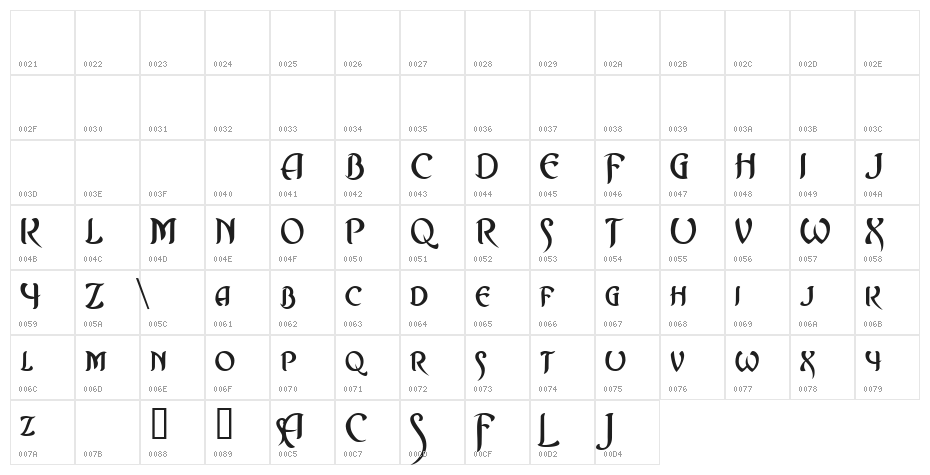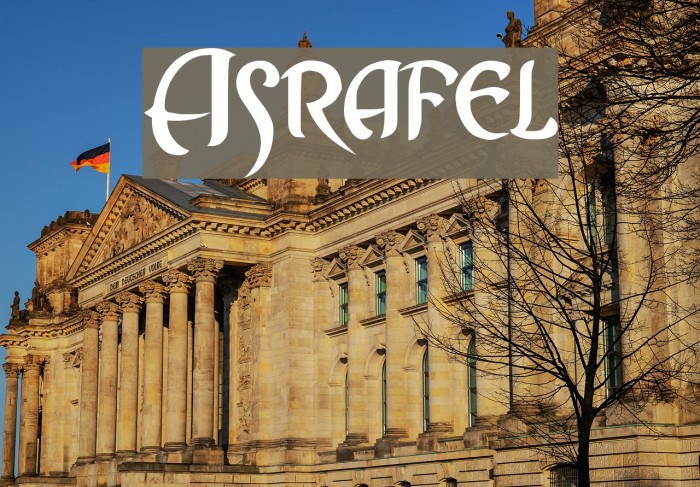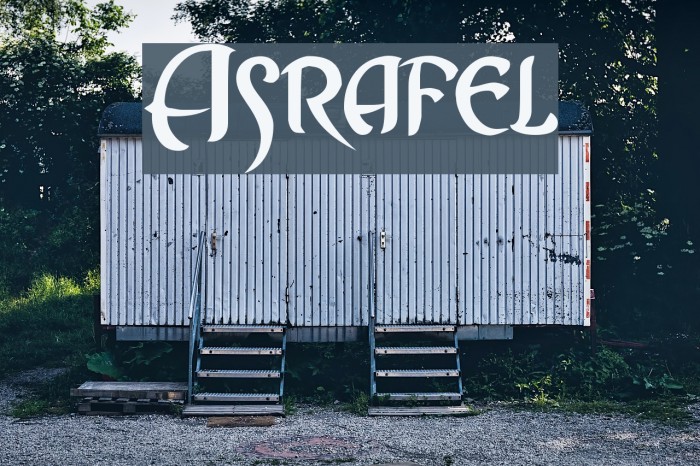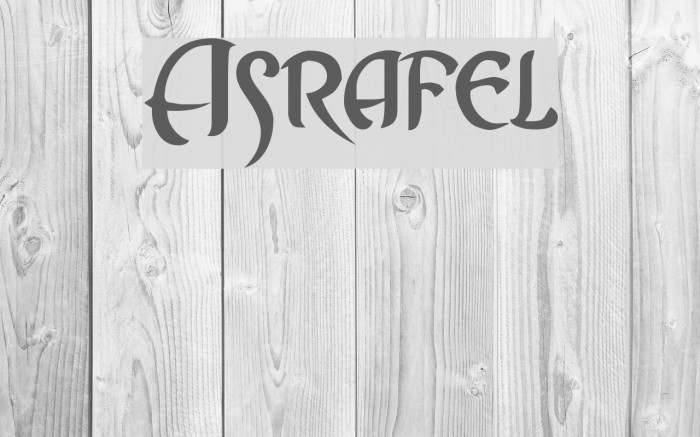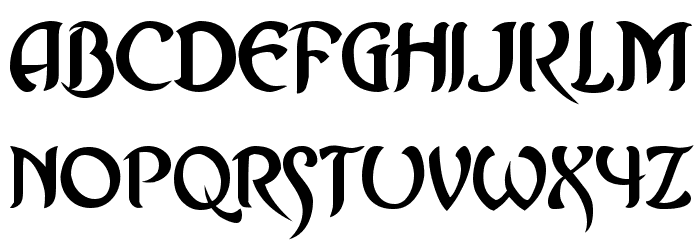
Asrafel Font
Asrafel Description
This font features a bold and dramatic style with sharp, angular serifs and a distinct medieval flair. The uppercase letters are characterized by their strong vertical strokes and pointed edges, creating a sense of power and authority. The lowercase letters maintain the same sharpness, with unique curves that add a touch of elegance. The overall design is reminiscent of Gothic script, making it suitable for projects that require a historical or fantasy theme. The font's boldness ensures it stands out, while the intricate details provide a sophisticated appearance.
| Proposed Projects | Ideal for fantasy book covers, historical themed posters, or medieval event invitations. |